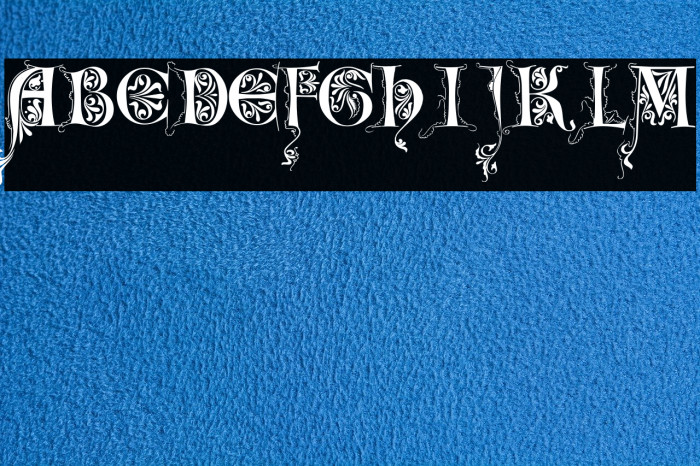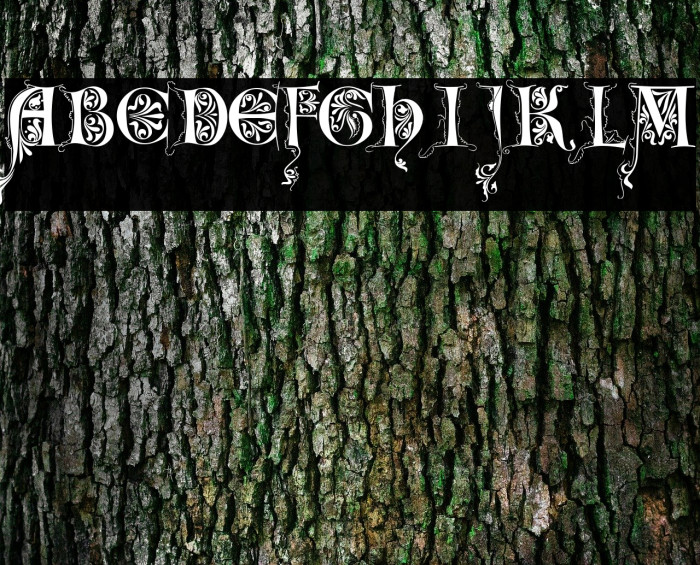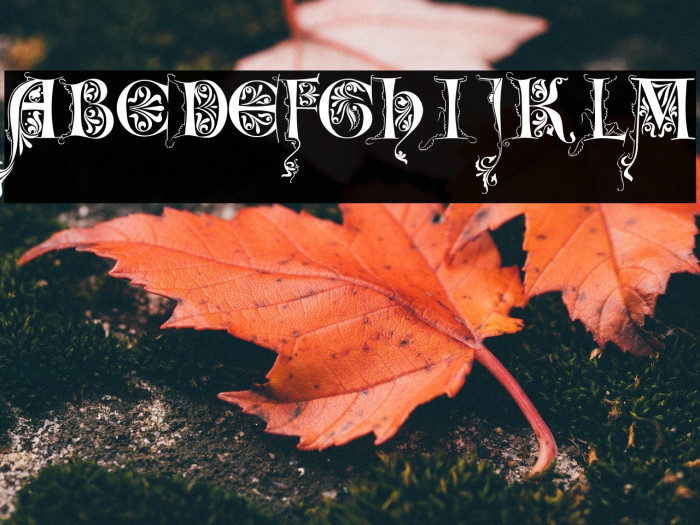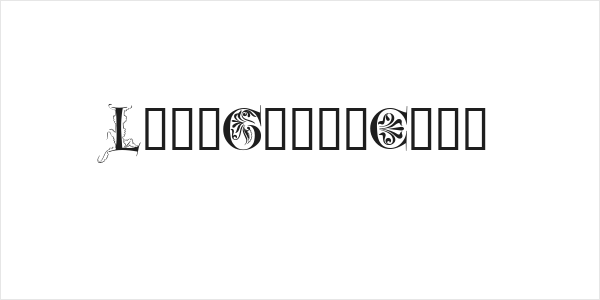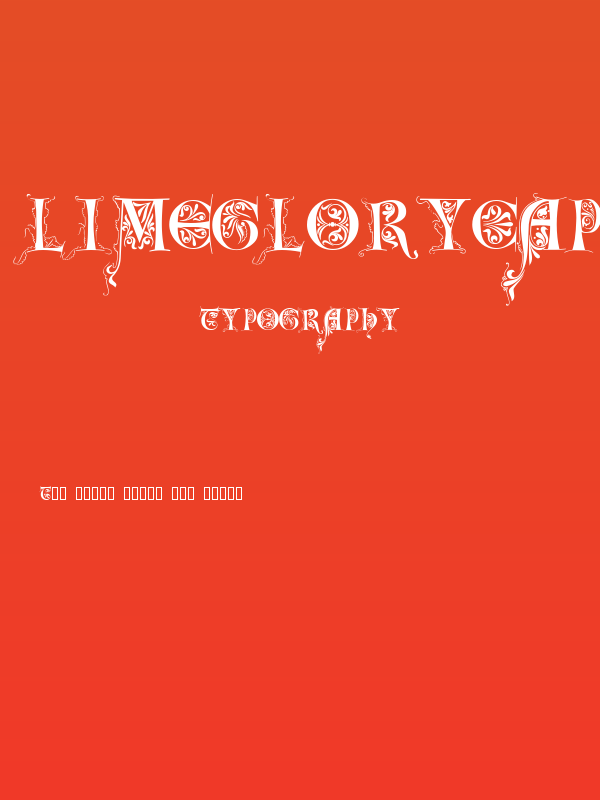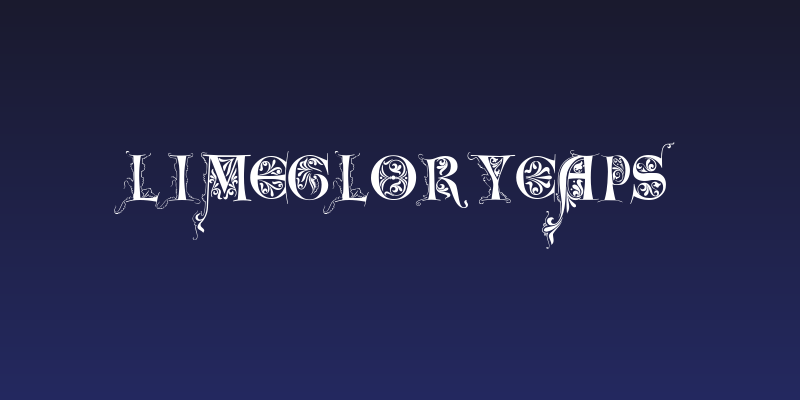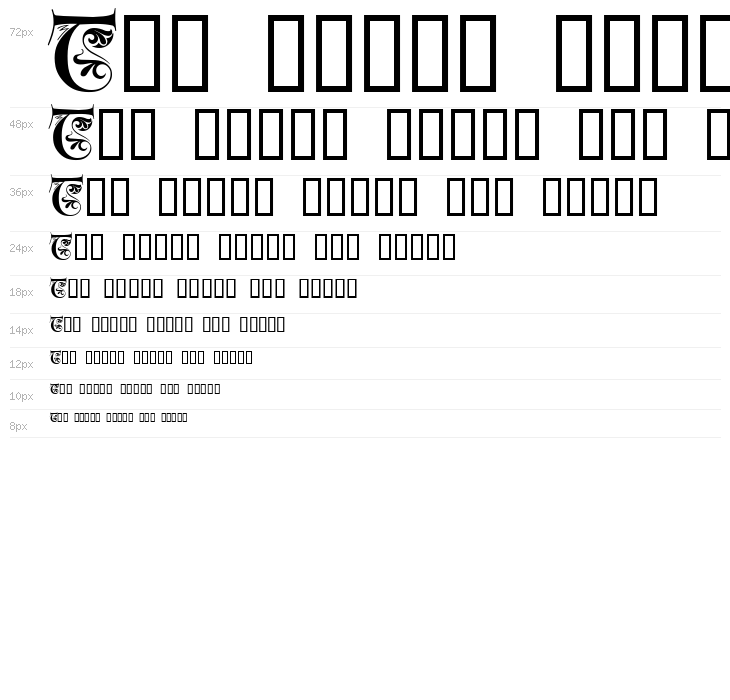
LimeGloryCaps Font
LimeGloryCaps Description
This font features an ornate and decorative style, characterized by intricate floral and vine-like embellishments that extend from the main strokes of each letter. The uppercase letters are highly stylized, with each character adorned with unique flourishes that give it a distinct, artistic appearance. The overall design is reminiscent of vintage or classical typography, often seen in historical manuscripts or decorative signage. The font's elaborate details make it suitable for use in projects that require a touch of elegance and sophistication.
| Use Case | Logos, Headlines |
| Proposed Projects | Ideal for wedding invitations, vintage-themed posters, book covers, and decorative signage. |